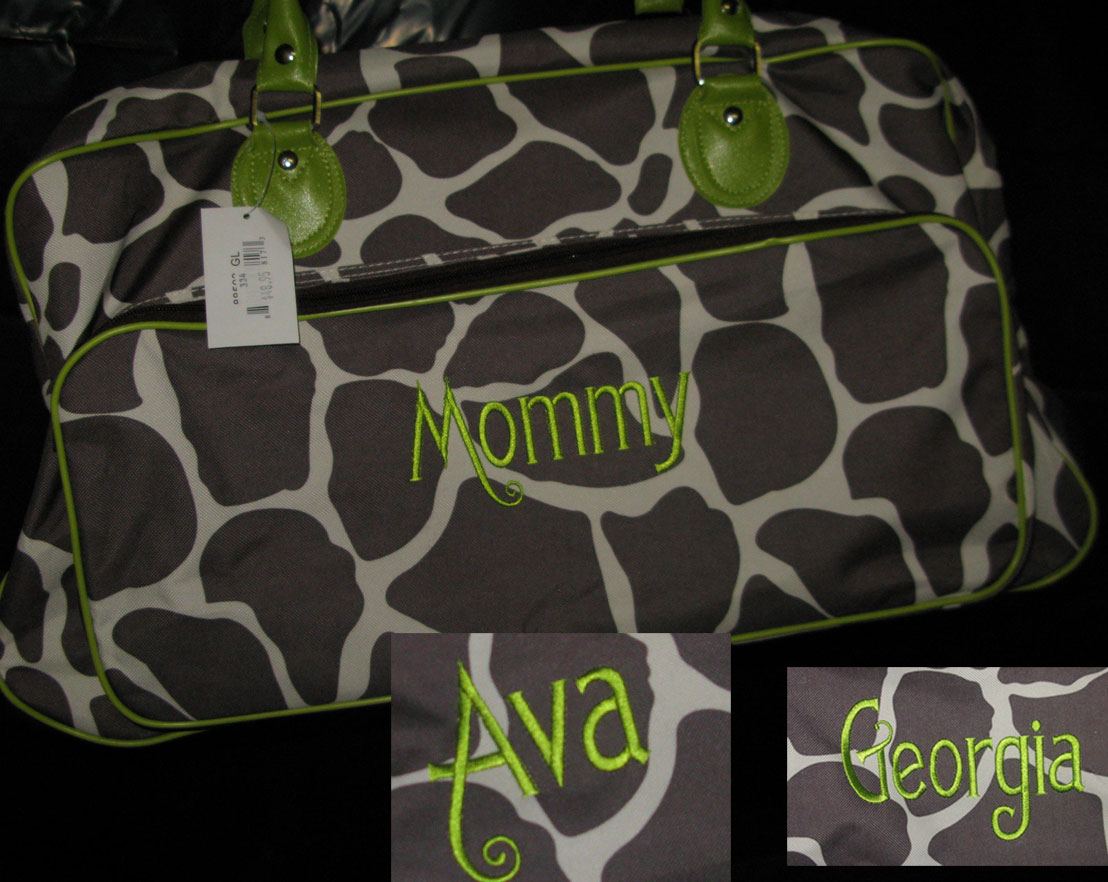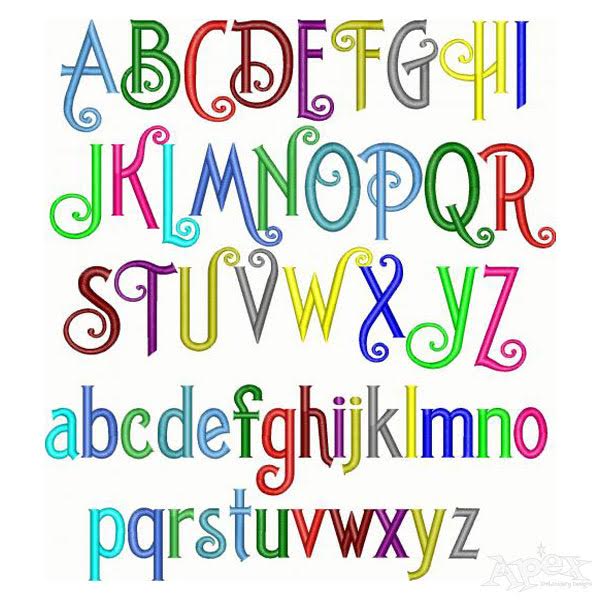
Old Timers Embroidery Font
Old Timers Embroidery Fonts. Upper case and lower case letters in two sizes. Great font sews out very nice. Go back in time with this old soda shop style font it's neato. Size: 2" and 3" sets.